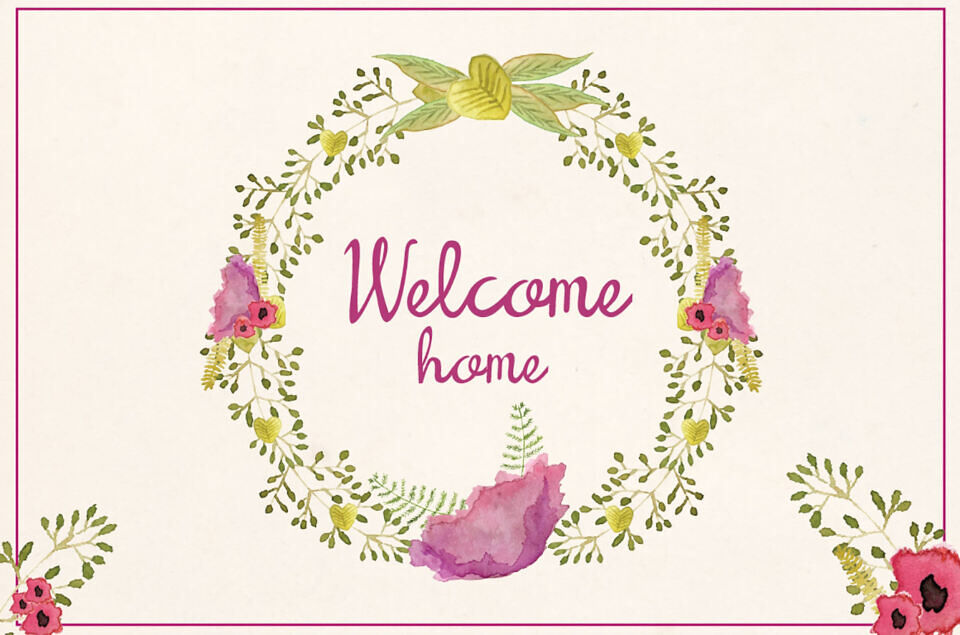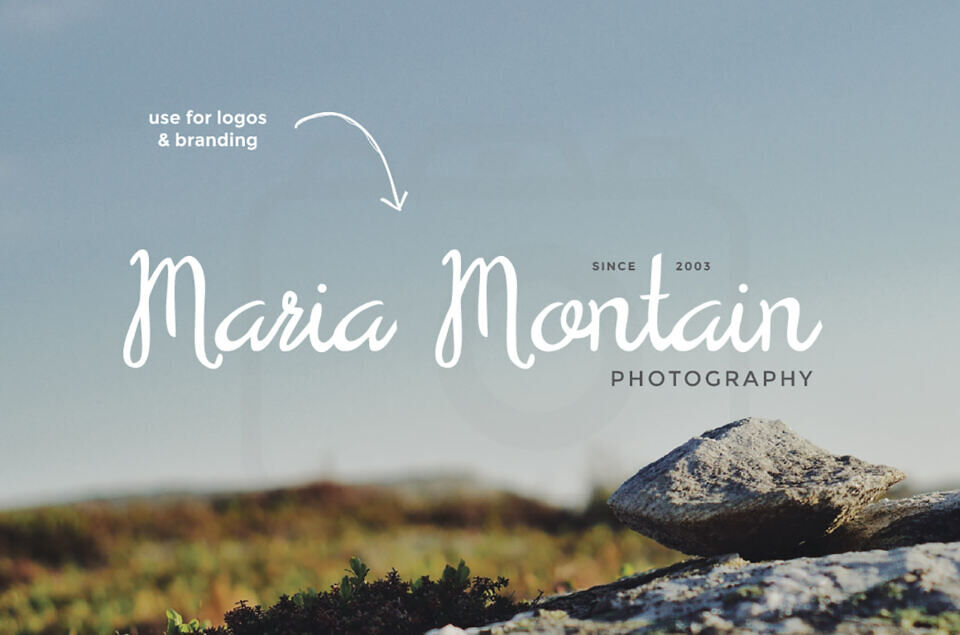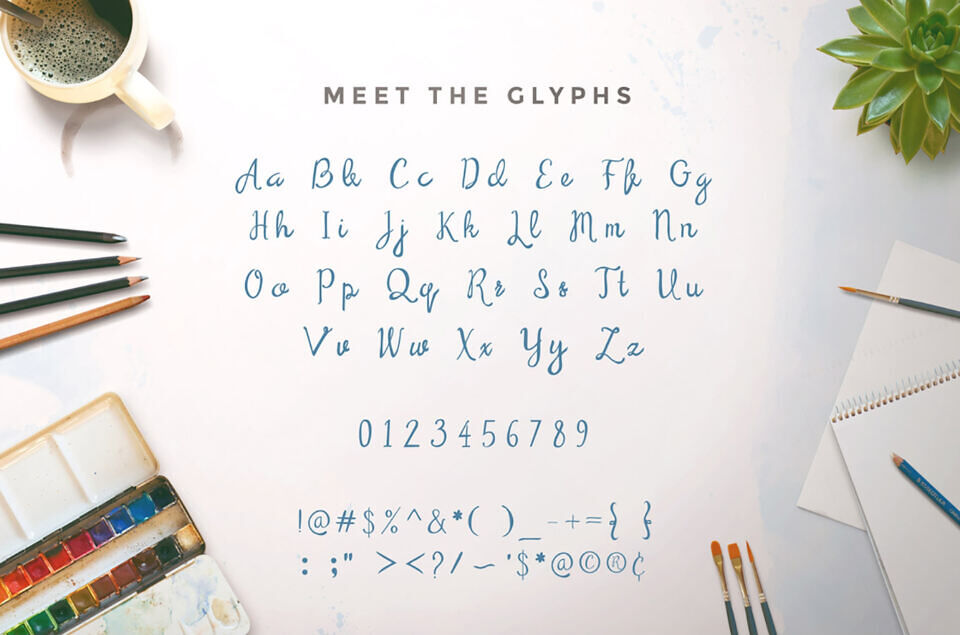
Serendipity Script Font captures the charm of whimsical handwriting with its flowing, cursive letterforms. Designed to evoke joy and spontaneity, this elegant typeface features soft curves and playful flourishes, perfect for romantic and creative projects.
Ideal for wedding invitations, branding, and heartfelt designs, Serendipity Script adds a personal, feminine touch with a hint of magic. Its delicate yet dynamic style makes every word feel like a serendipitous discovery, blending beauty and playfulness effortlessly.